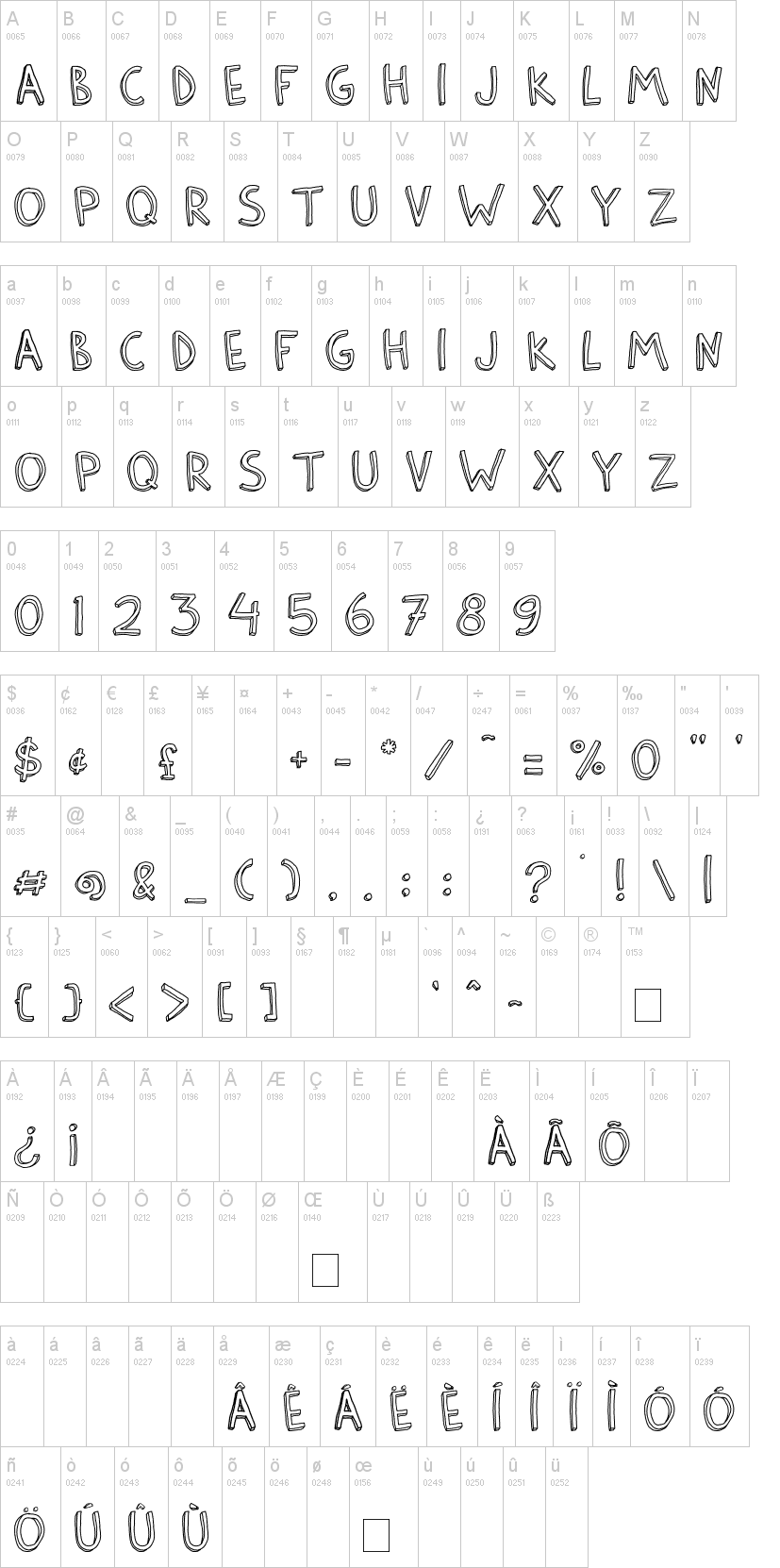
Barlow by Thunderpanda
A new set of fonts by Thunderpanda aka (ehmmm me) called Barlow (taken from Lou Barlow). I think this is the most complete set by far.